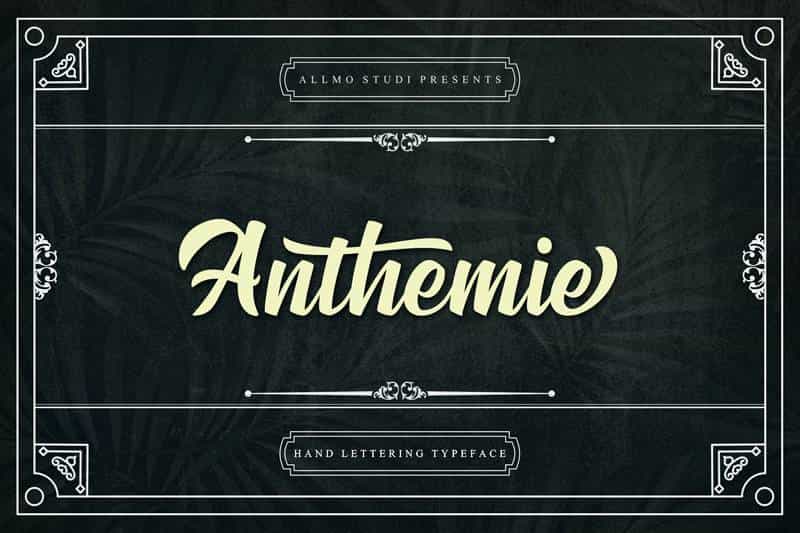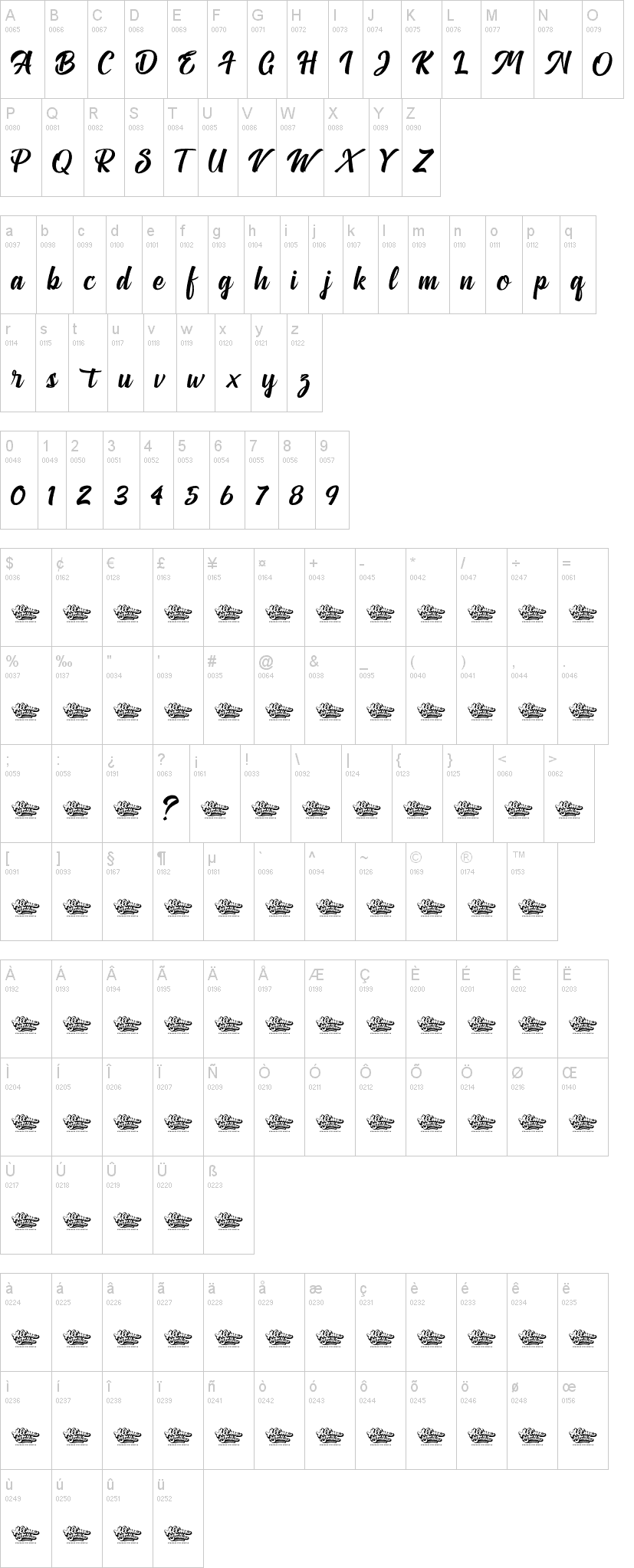
This high-quality calligraphy typeface was designed by Alamsyah Muhammad. In a few words, it is the exotic and delicate of one day, reveling under moonlight; at dawn, it returns to active duty. For the most part the Anthemie Modern Calligraphy Font works as a headline typeface, and could even do a short paragraph if necessary.